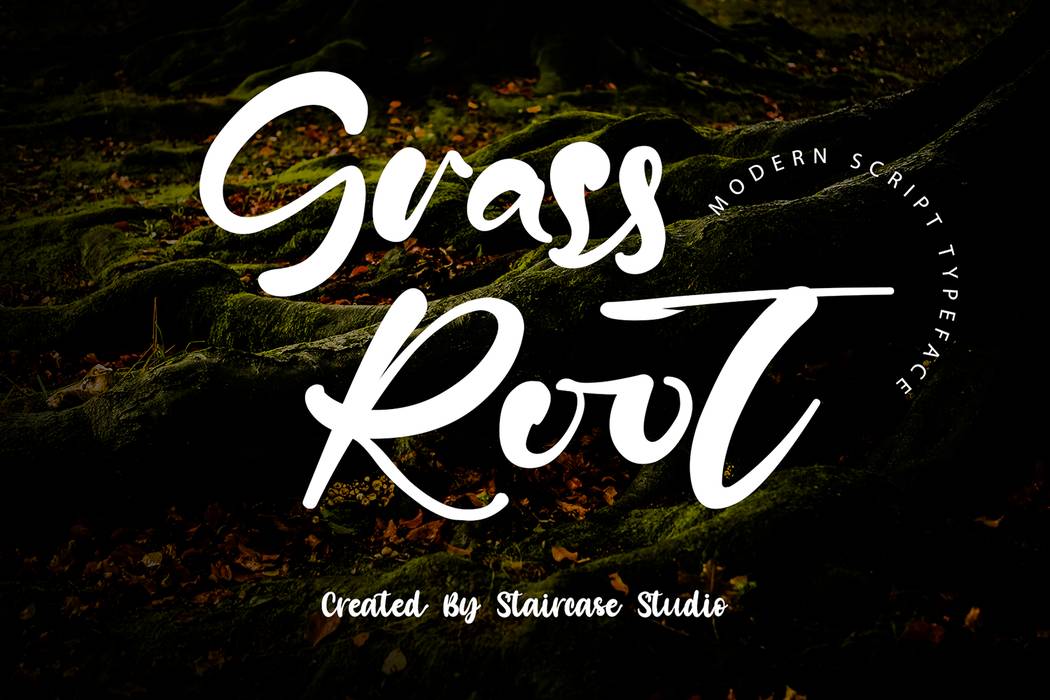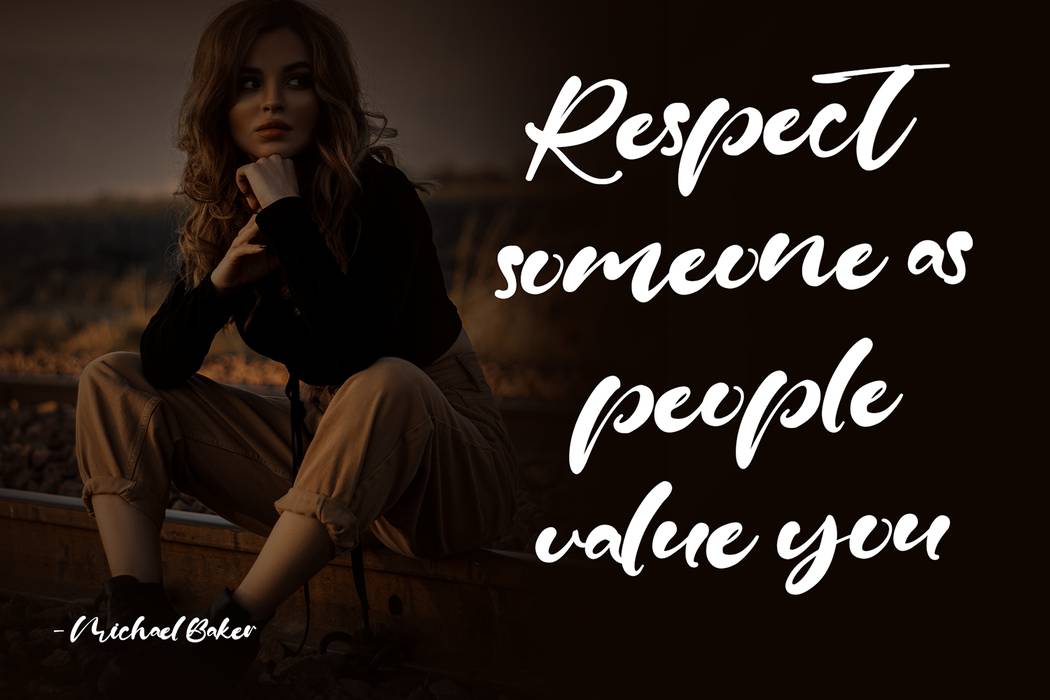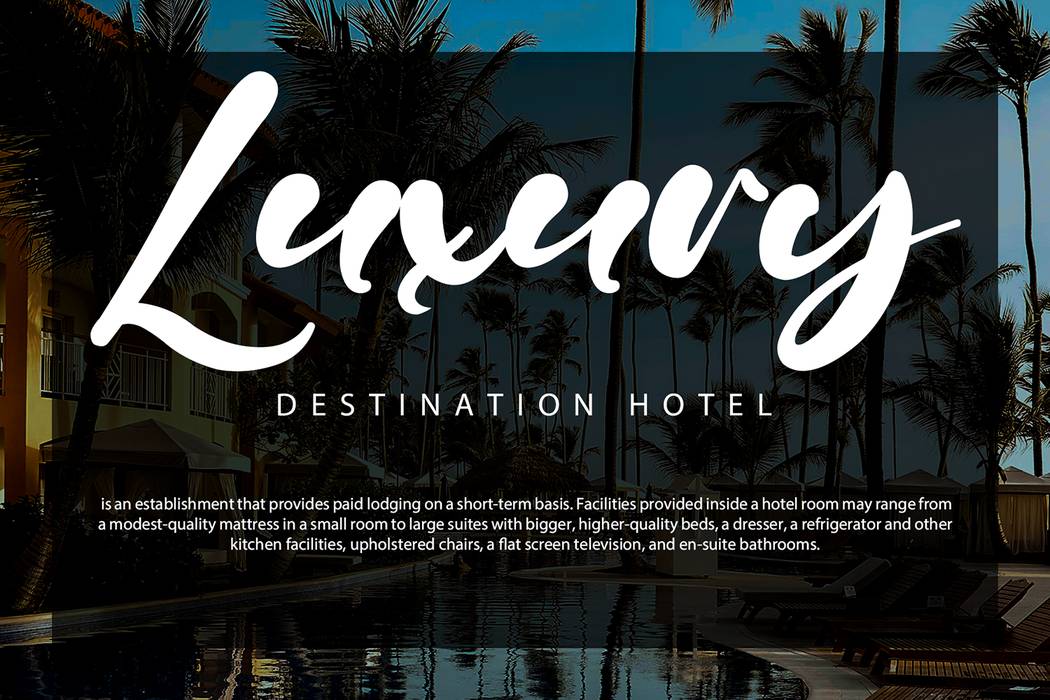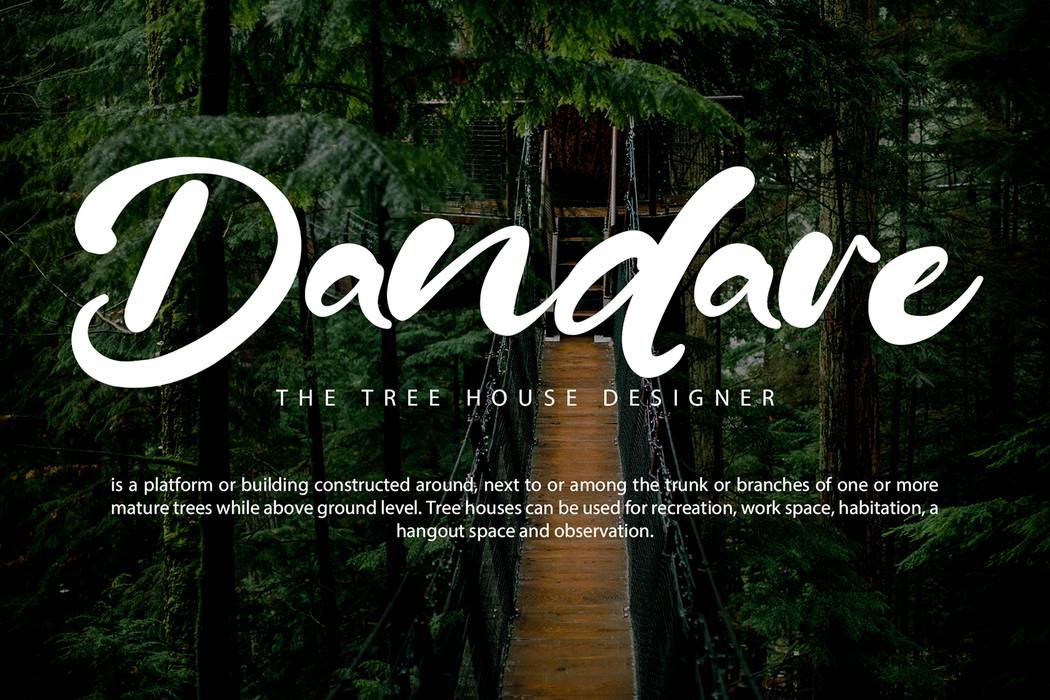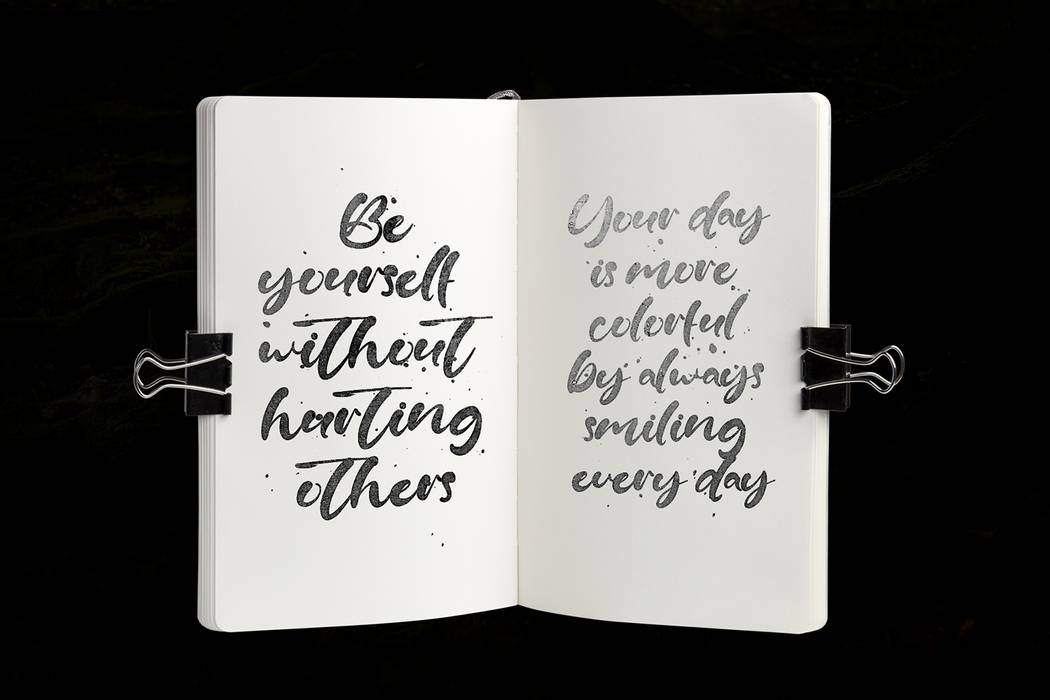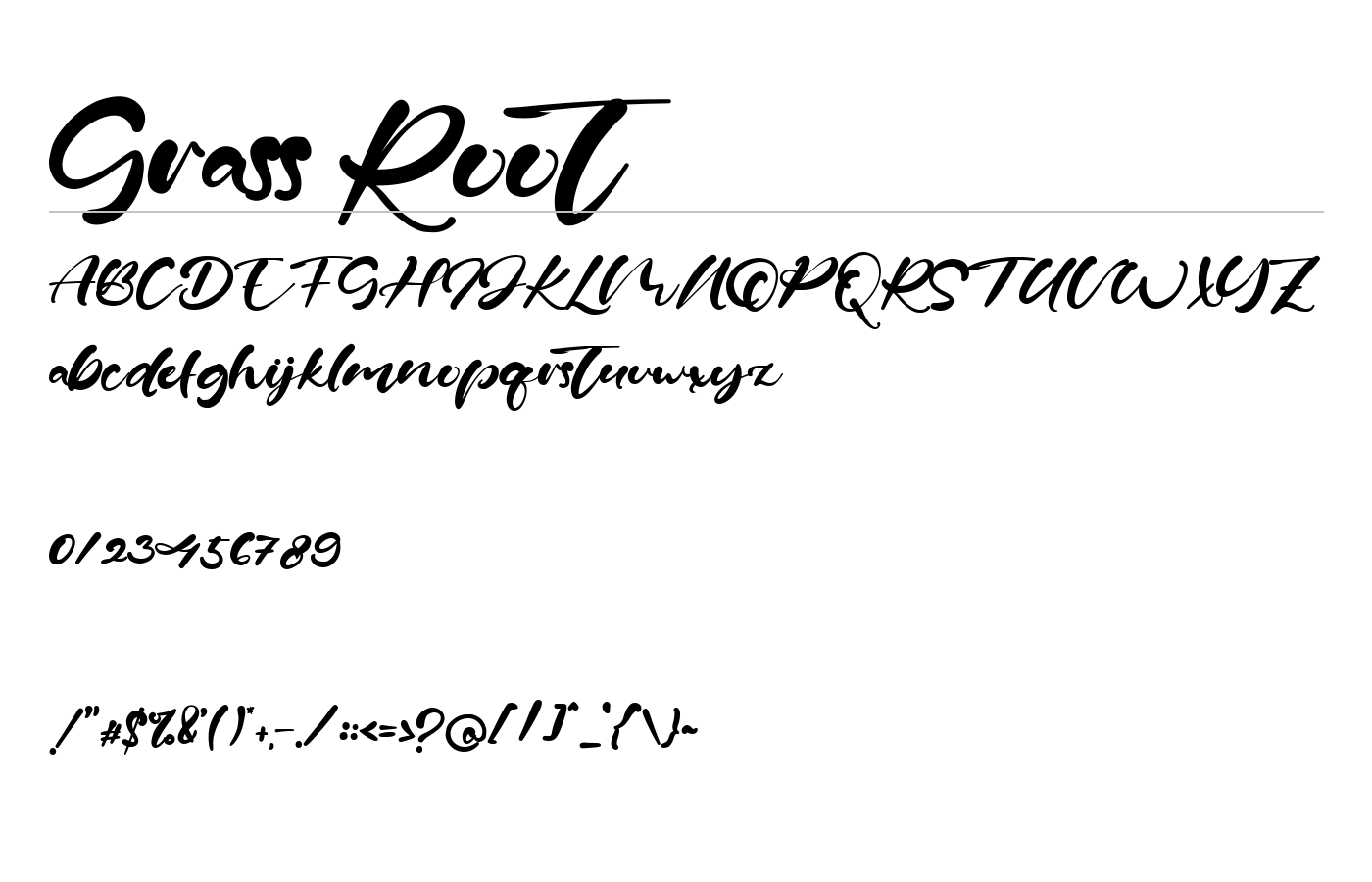
Grass Root is a lively script font with a casual, hand-drawn feel characterized by its smooth, flowing strokes and moderate contrast. Its expressive letterforms and unique playful twists make it perfect for creative branding, invitations, and stylish headlines where a personal, approachable touch is needed. This font works well in designs that want to communicate warmth and spontaneity without losing elegance.
Grass Root Font
About Grass Root Font
| Font family | Grass Root Font |
| Release date | 2021-08-25 |
| Designer | Staircase Studio |